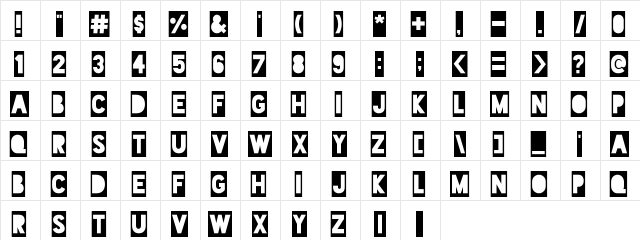
Blackout Two AM
| Foundry | SURSLY _ Tyler Finck |
| Designer | Tyler Finck |
Design Context for Blackout Typeface
Blackout offers clean, dependable letterforms without strong stylistic allegiance, making it a practical choice for designers who need flexibility.